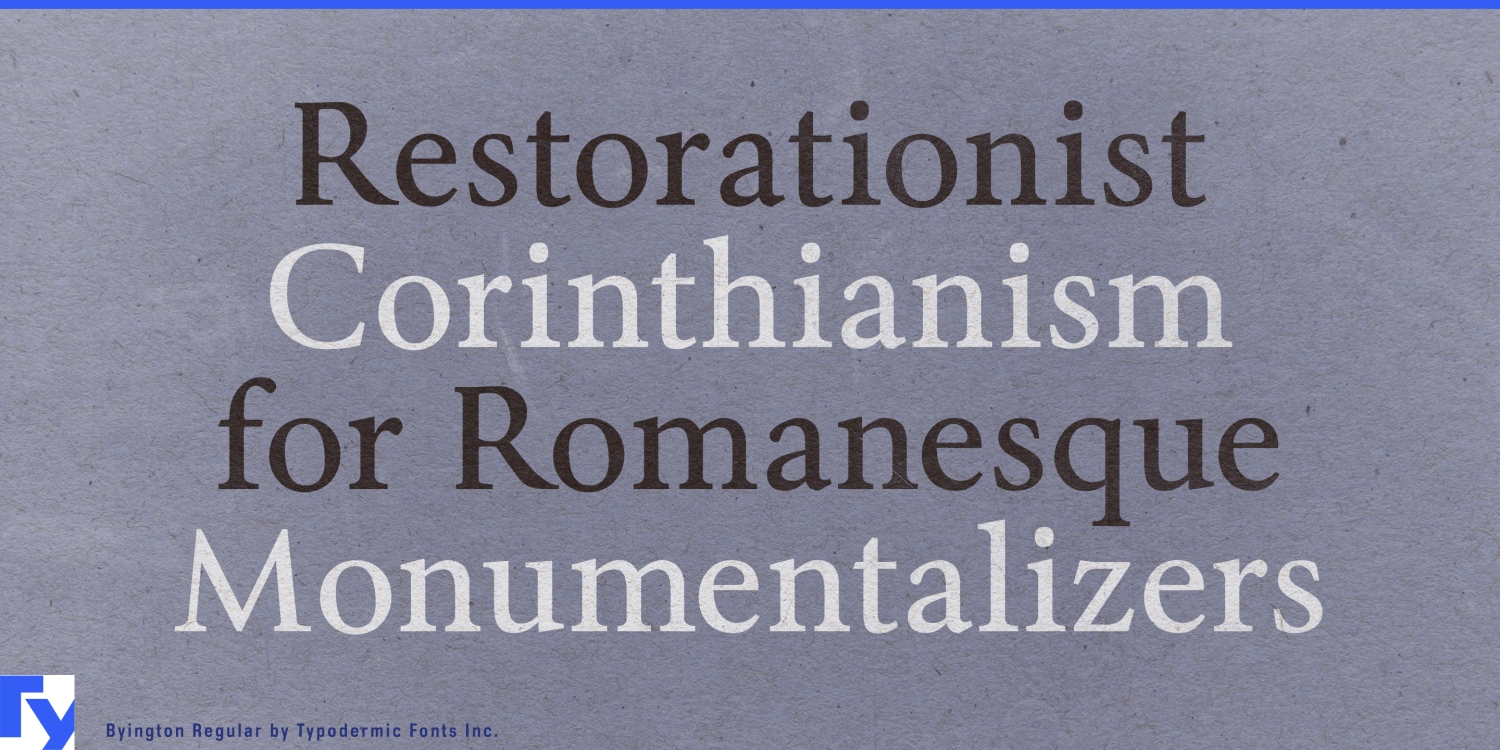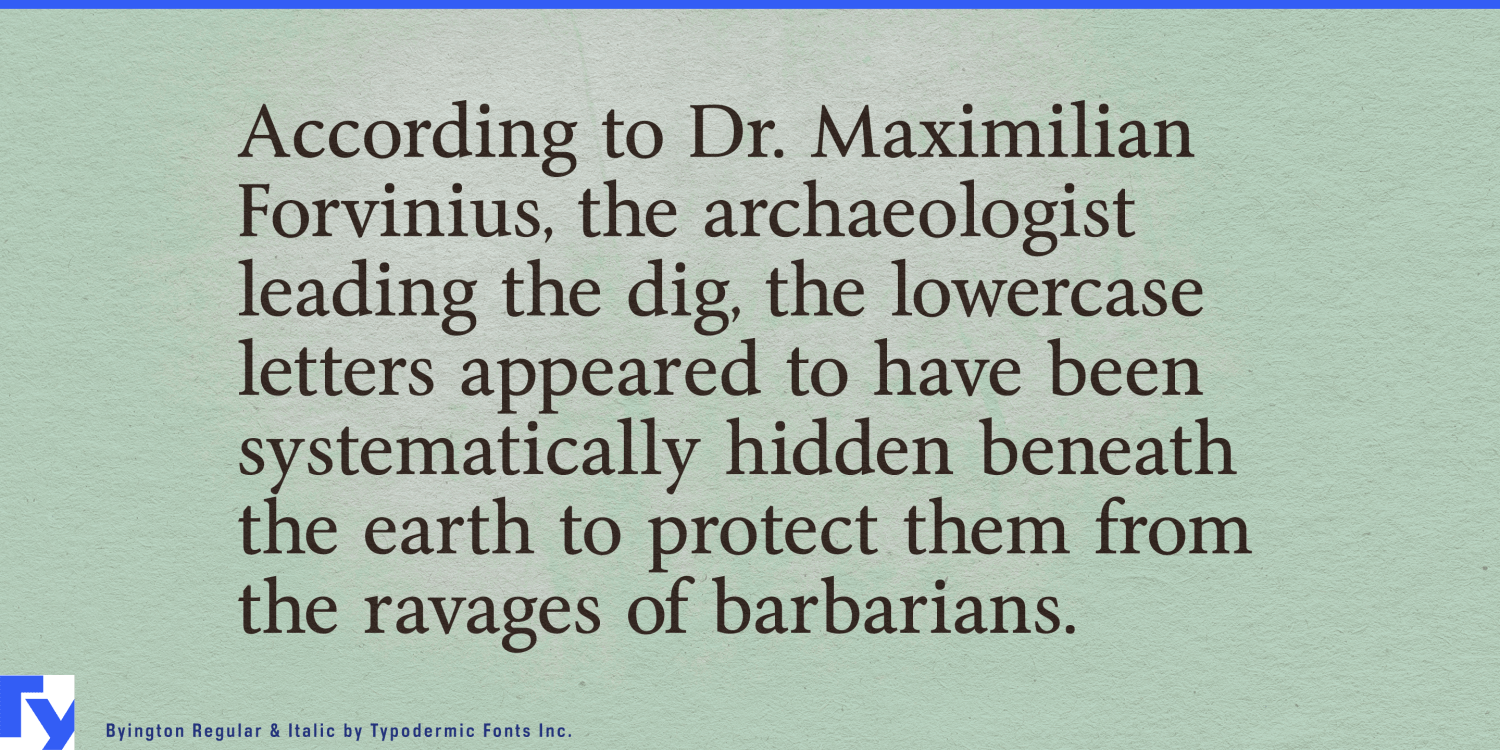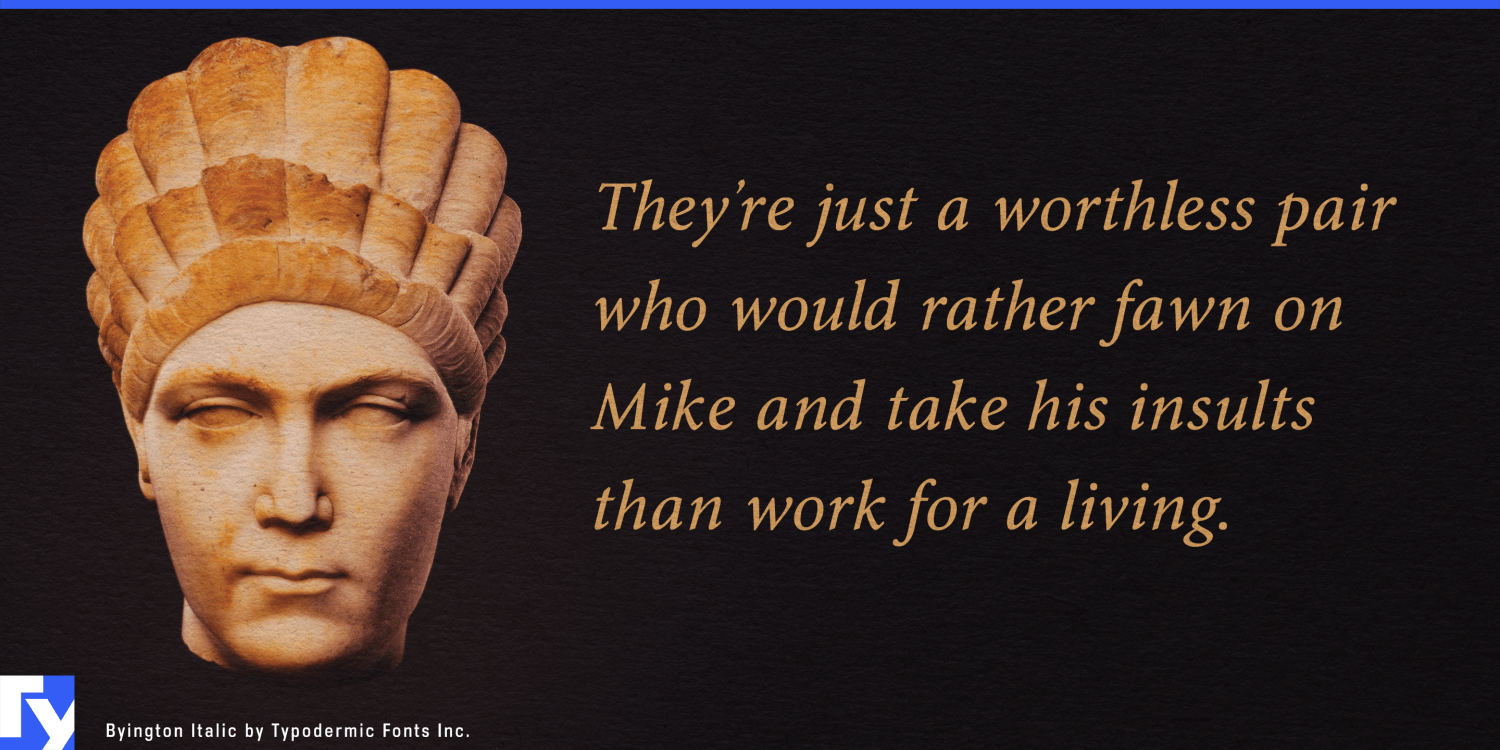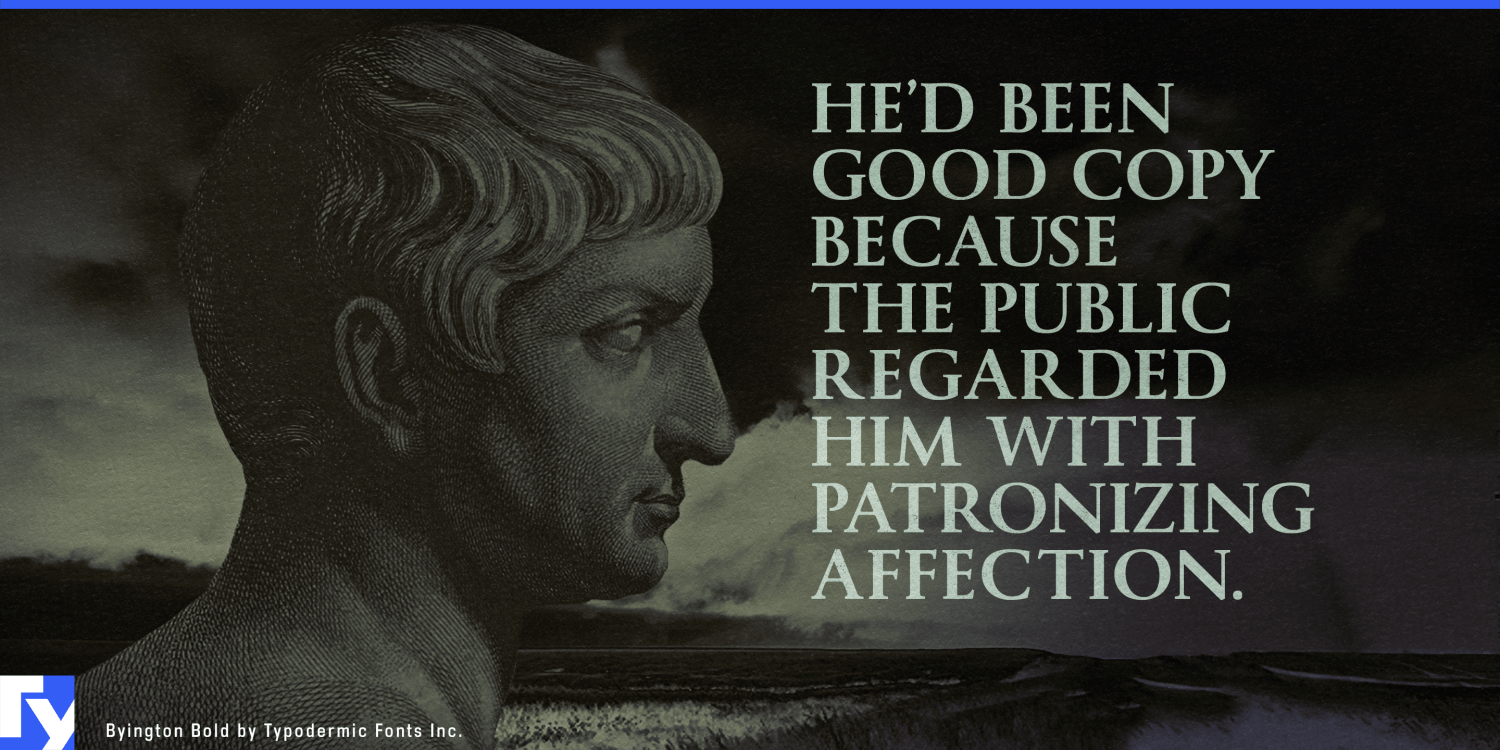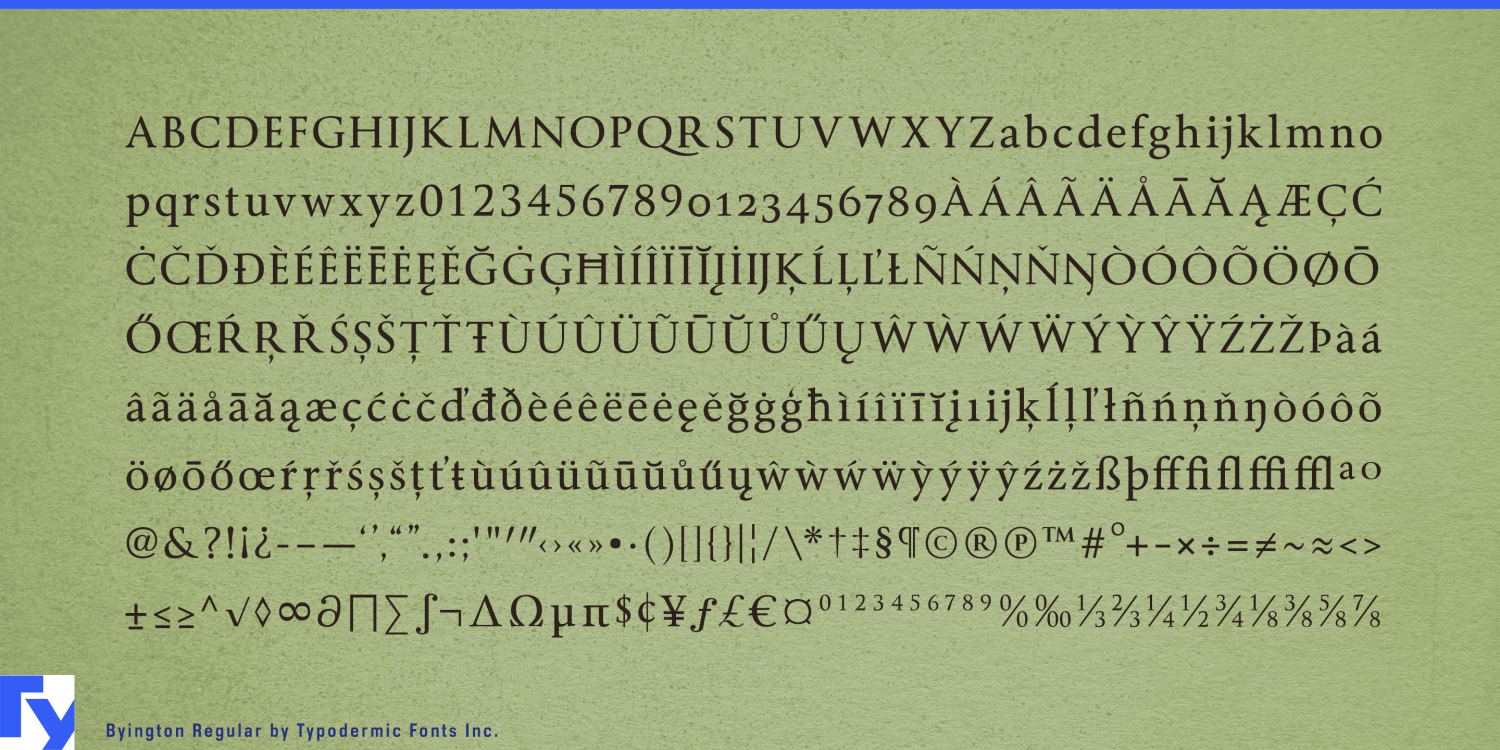
Byington stands as a typographic bridge between ancient Rome and the modern world, offering a bold reinterpretation of classical letterforms for contemporary designers. This font family draws its inspiration from the majestic inscriptions adorning Trajan’s…